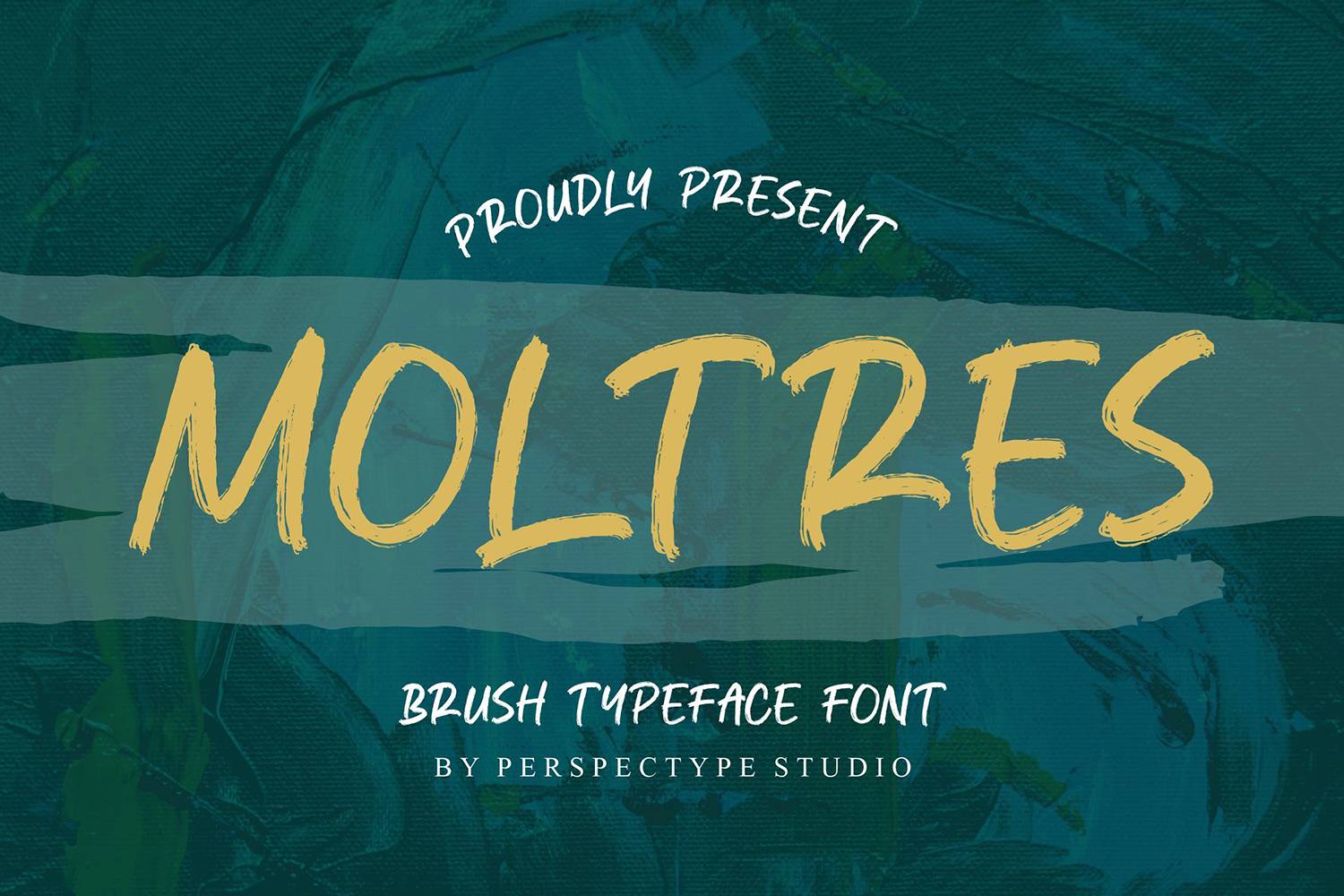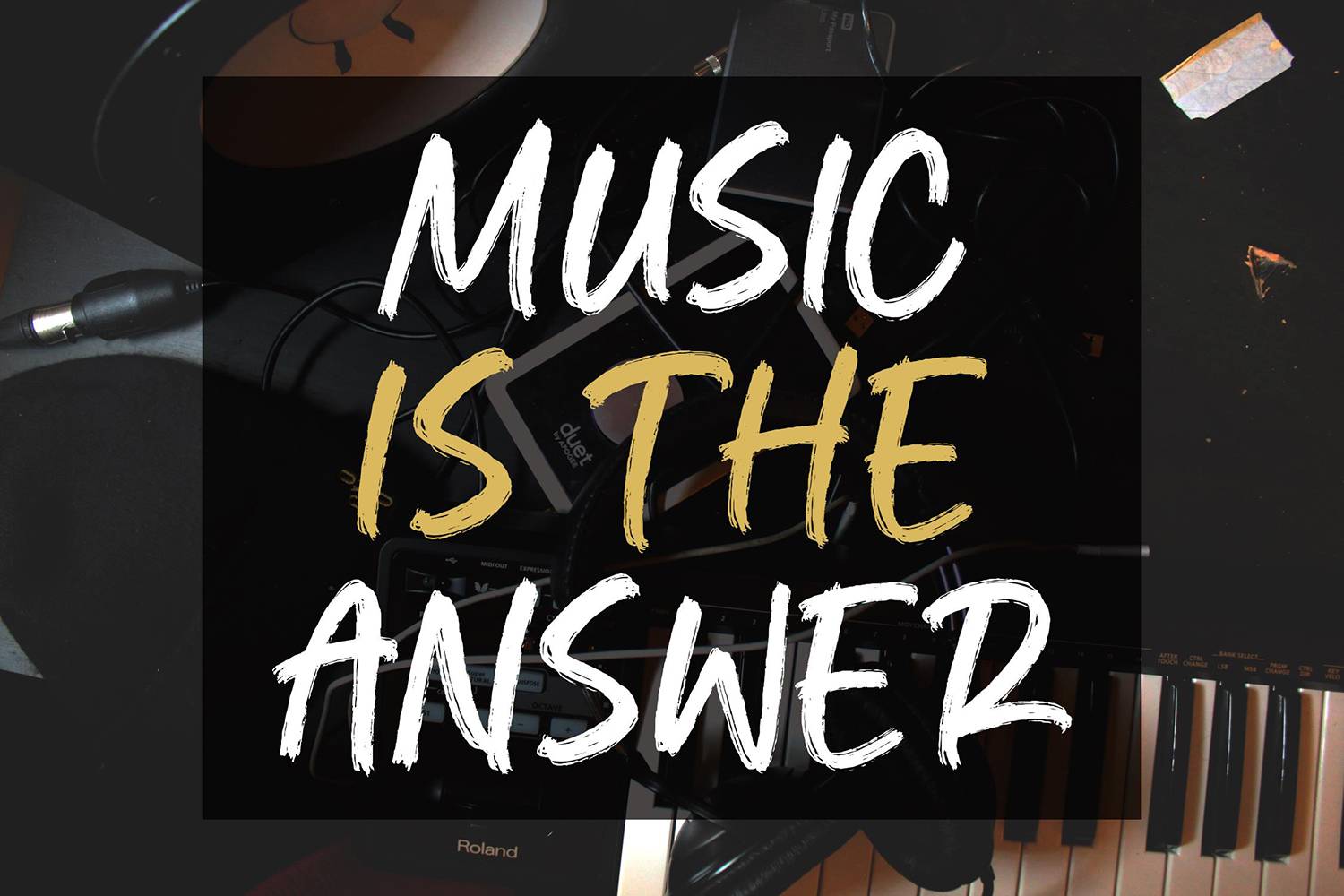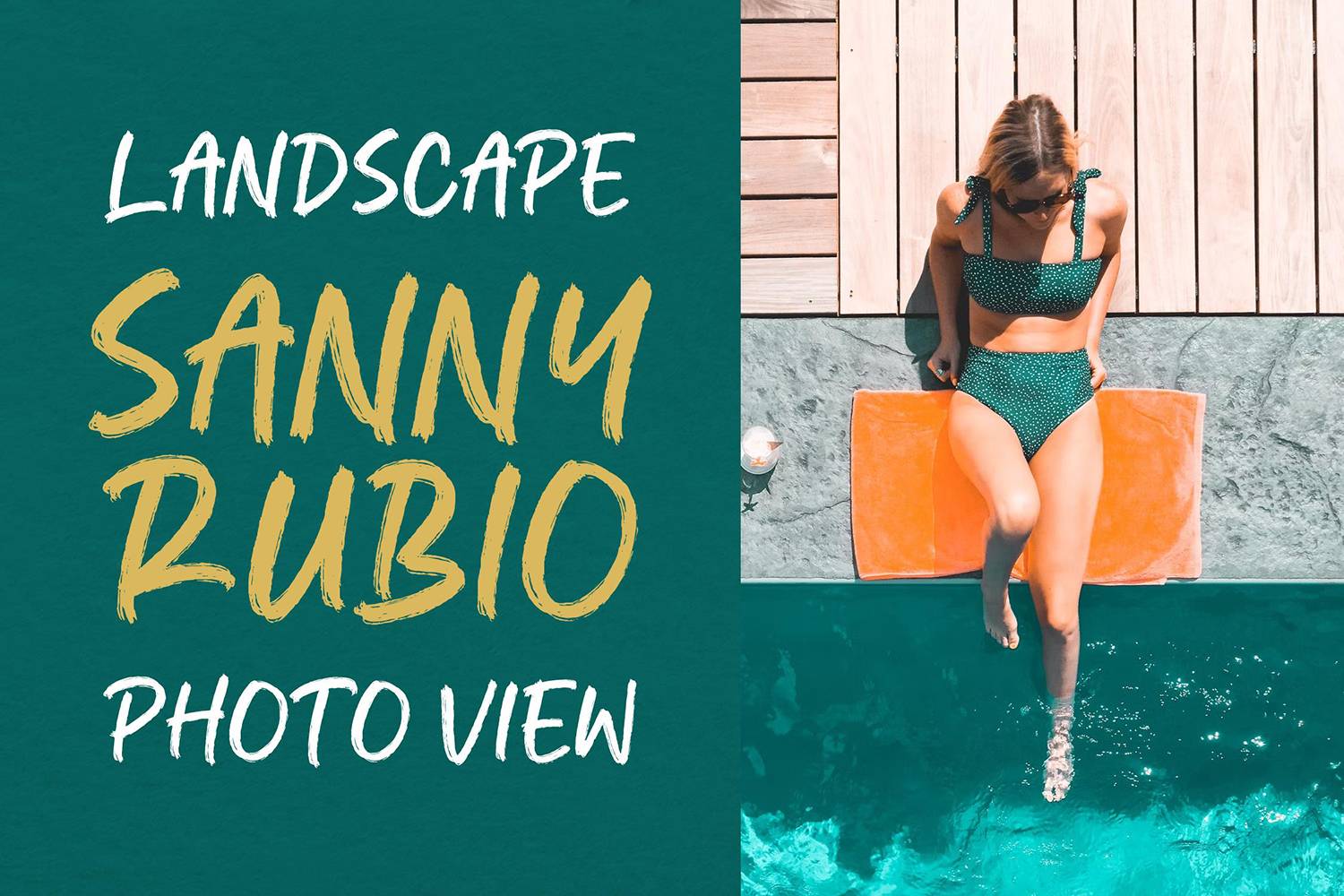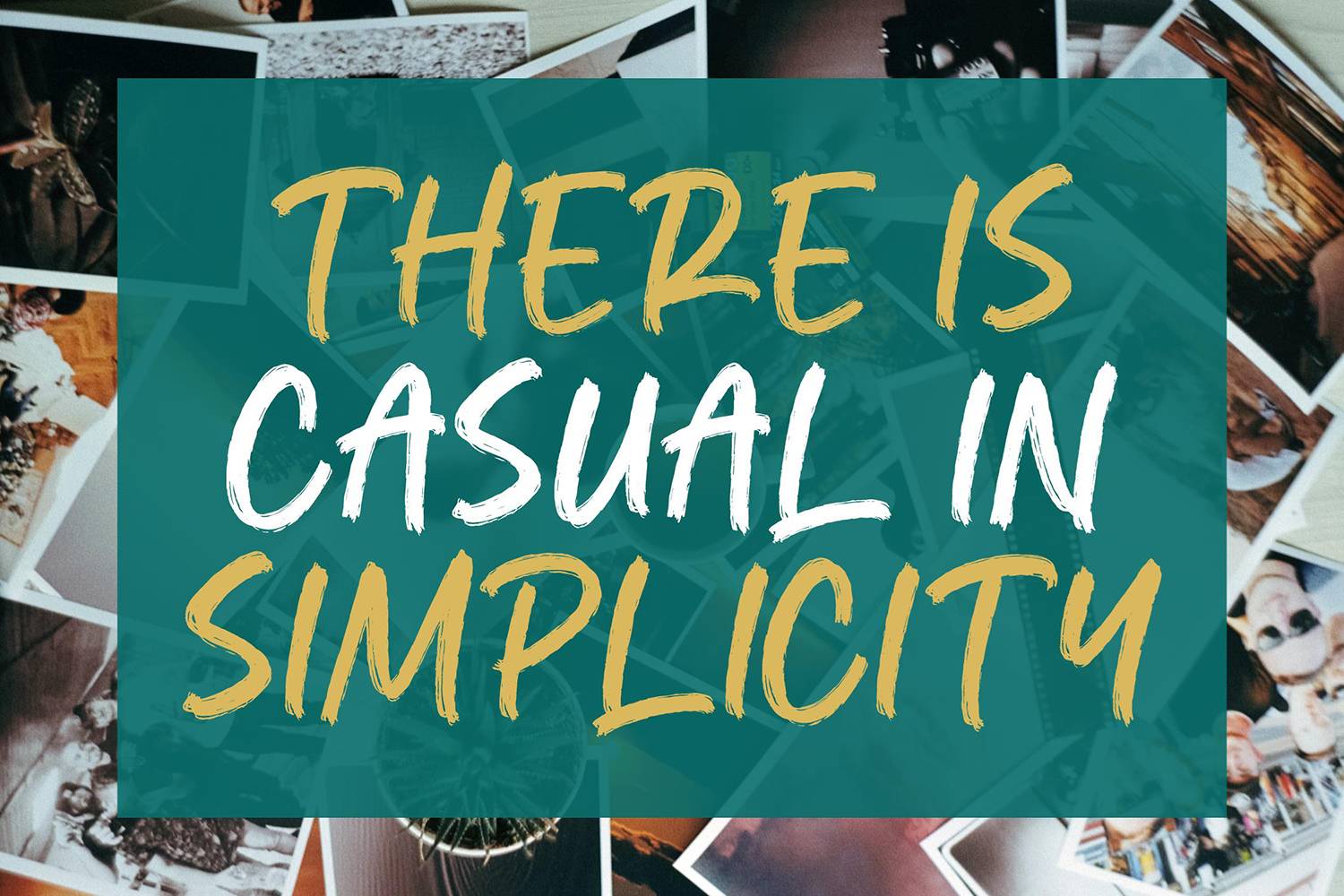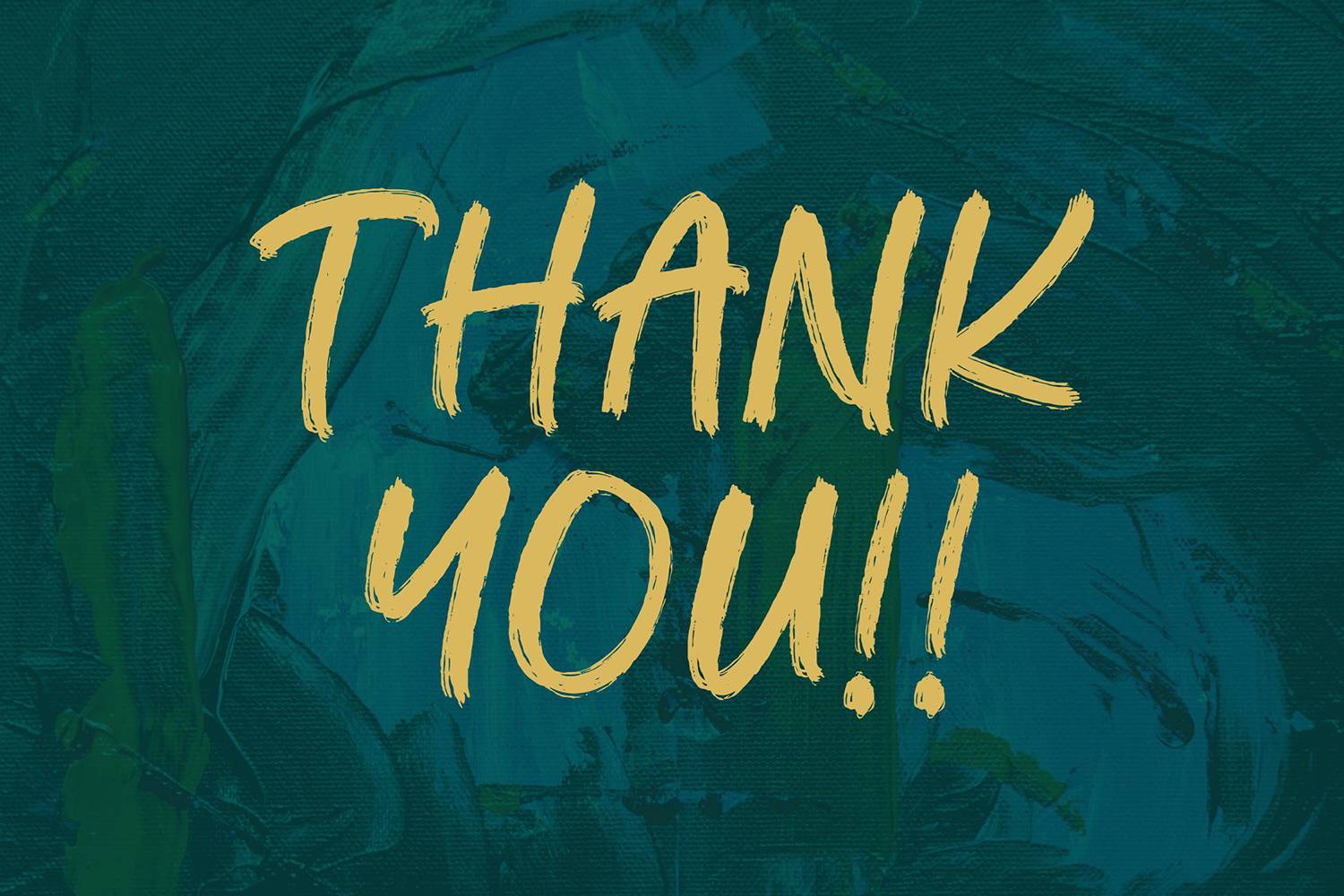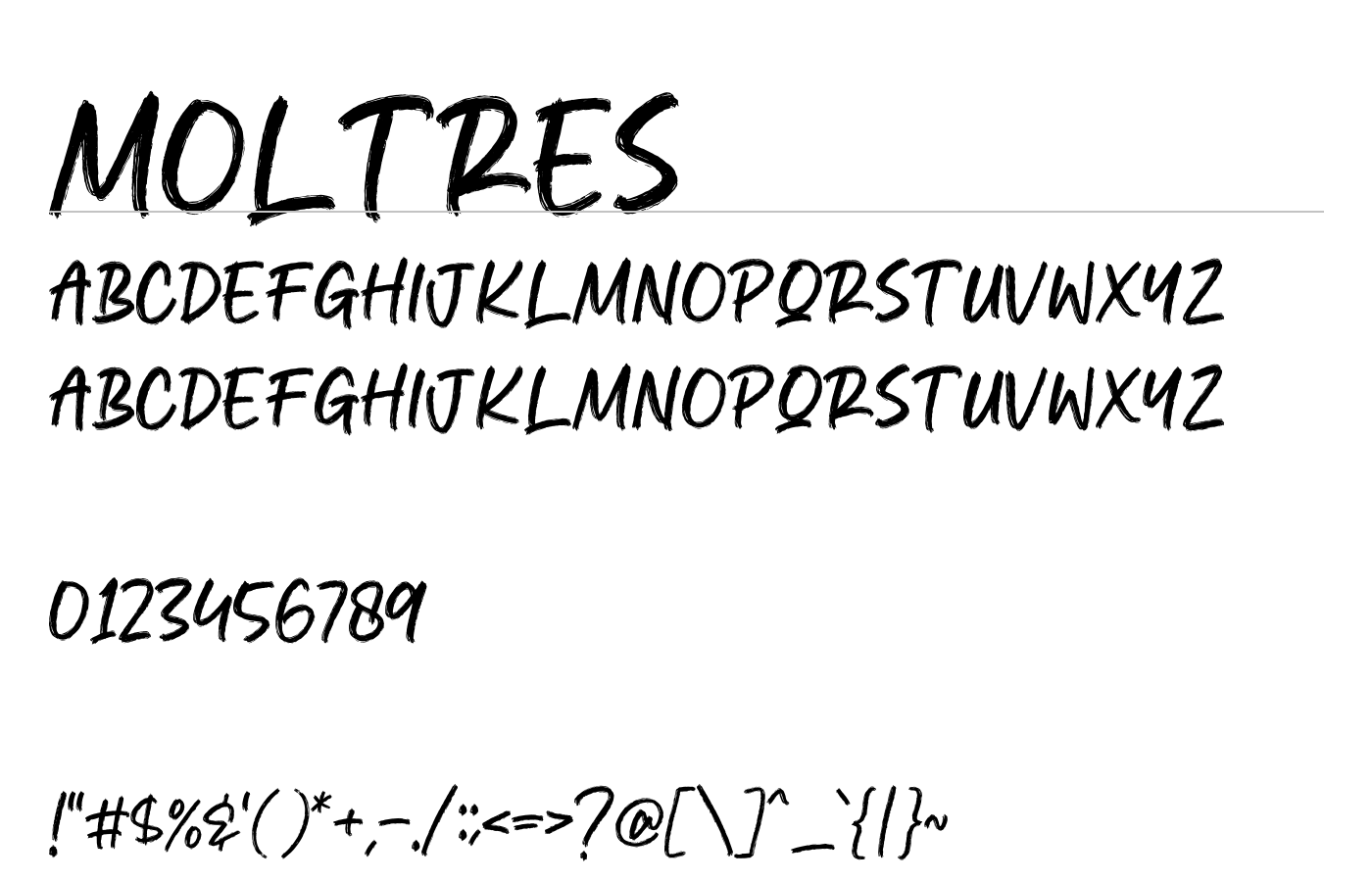
Moltres is a dynamic, handwritten brush font that exudes energy and natural flair with its bold, textured strokes and casual, slightly slanted letterforms. Its expressive style works wonderfully for creative branding, posters, and headlines where a lively, authentic touch is desired, making it perfect for conveying a sense of artistic spontaneity and personal expression.